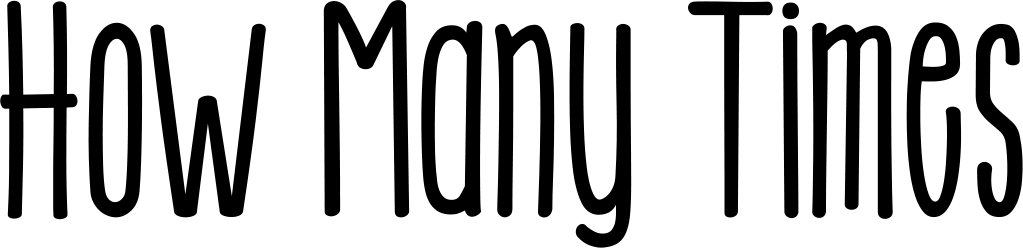
KG How Many Times Font
If you need a skinny school font for your layouts, you should take a look at KG How Many Times. This one with tall and tender letters can be proper for bullet journals, kindergarten posters, postal cards, etc. Take it without a second thought to gain a fantastic outcome.